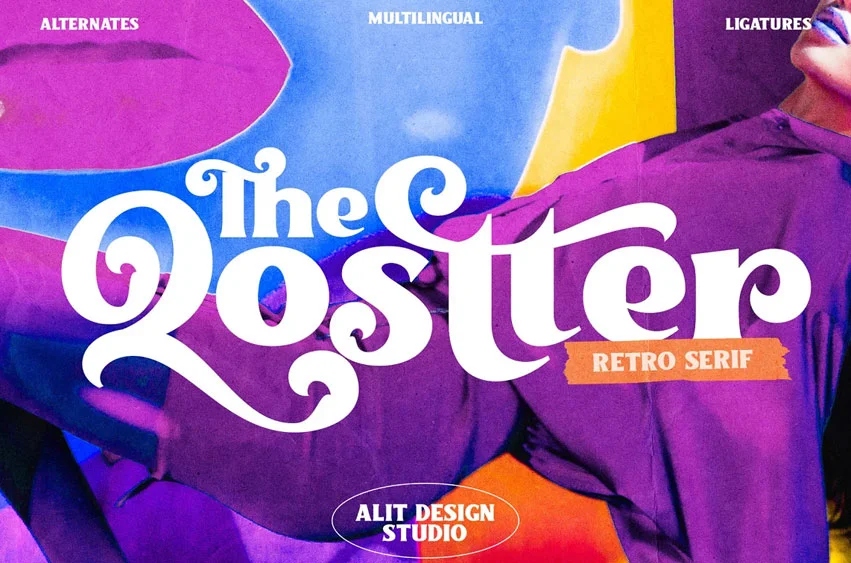
The Qostter Font
The Qostter Font is a cool and stylish retro serif display font. It will add an incredibly joyful touch to your designs. Add this beautiful display font to each of your creative ideas and notice how it makes them stand out!
Qostter Retro Serif font is very suitable for making designs with retro concepts, simple and playful designs, for example making magazine cover designs, music covers, YouTube thumbs, text headers, logotypes and so on with an elegant retort theme.